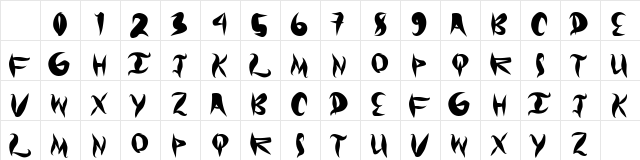
Complete Graffical Regular glyph index. Displaying only characters natively supported by Graffical Regular font.
Graffical is a composed and adaptable typeface that performs quietly and consistently across a wide range of design contexts.